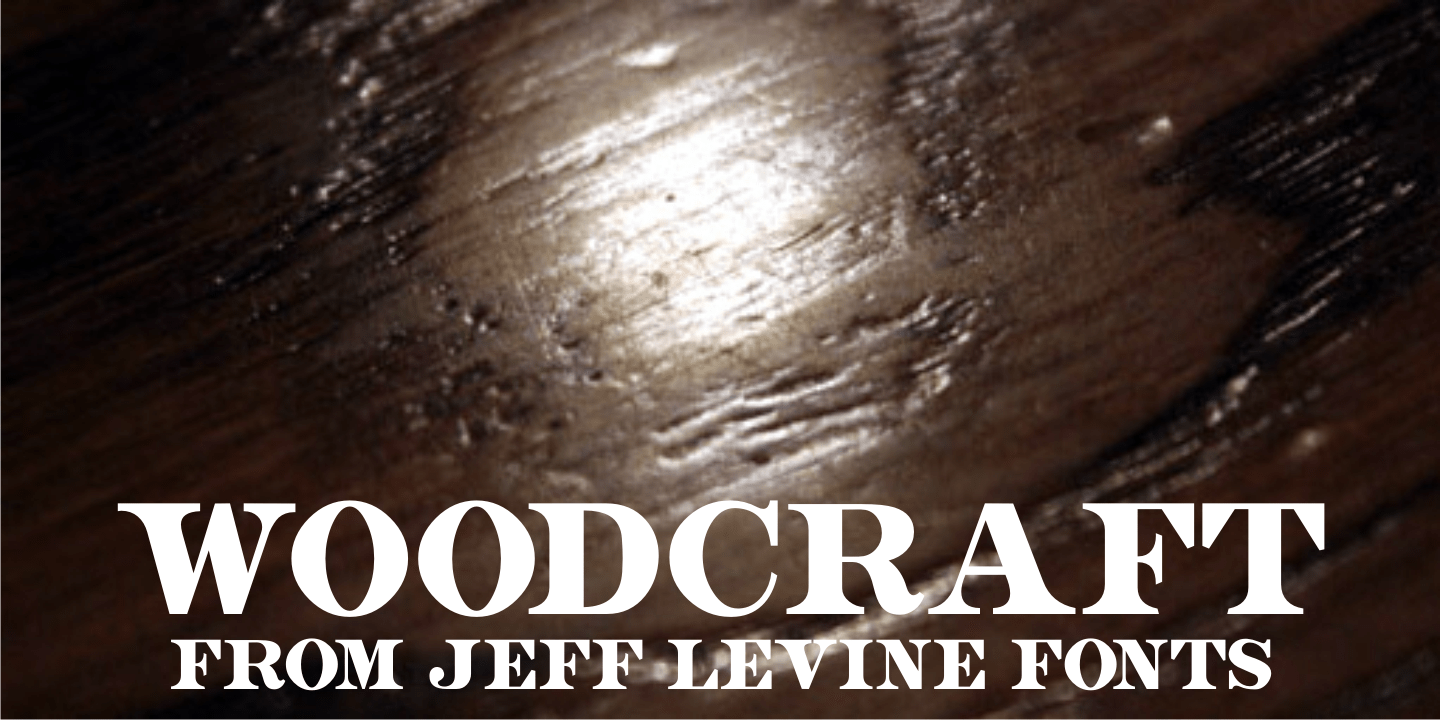
Woodcraft
Woodcraft JNL is another fine example of the charm wood type adds to the printed page. The hand-cut design's eccentricities enhance any project that desires to reflect the advertising of another time and place.